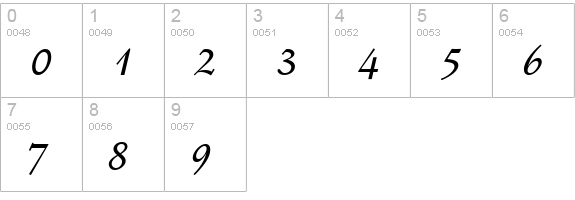
Deutch Medium SSi Medium Italic is a balanced, medium-weight, italic variant in the Deutch typeface family \xE2\x80\x94 well suited to sub-headlines, navigation, and balanced editorial work.
Deutch Medium SSi Medium Italic font is a stylish and versatile typeface that exudes sophistication and elegance. Its italicized design adds a touch of flair and modernity to any text, making it perfect for a wide range of design projects. Whether you are creating a sleek logo, designing a professional website, or crafting an eye-catching poster, this font is sure to make a statement. One of the best things about Deutch Medium SSi Medium Italic font is that it is free to download at FontsMarket.com. This means that you can access this high-quality font without any cost, making it a fantastic option for budget-conscious designers and creatives. Don't miss out on the opportunity to enhance your projects with this beautiful and versatile font - download Deutch Medium SSi Medium Italic today and take your designs to the next level!